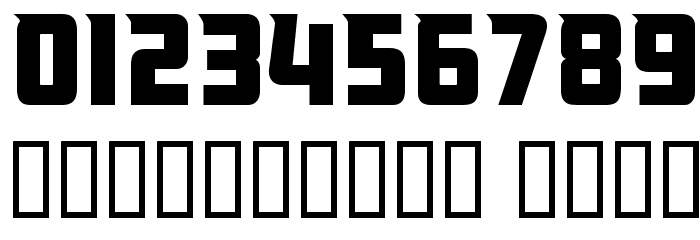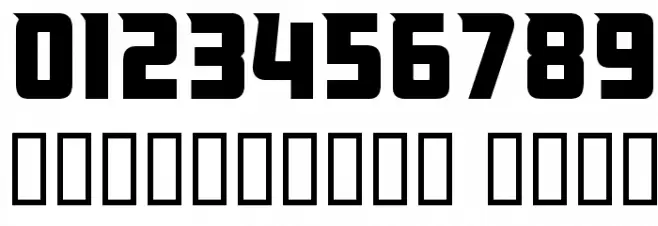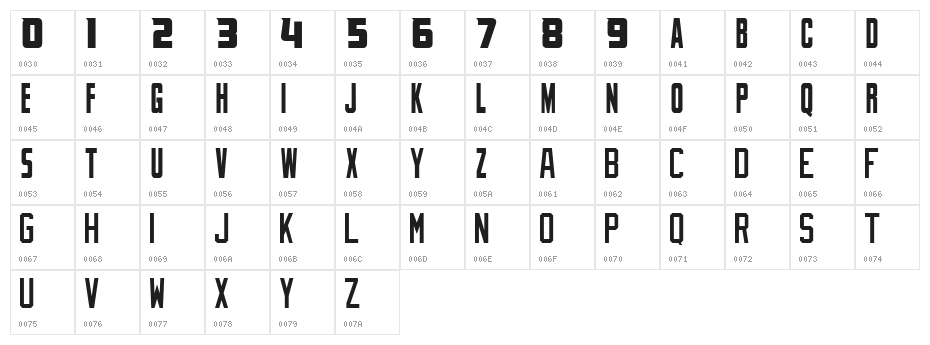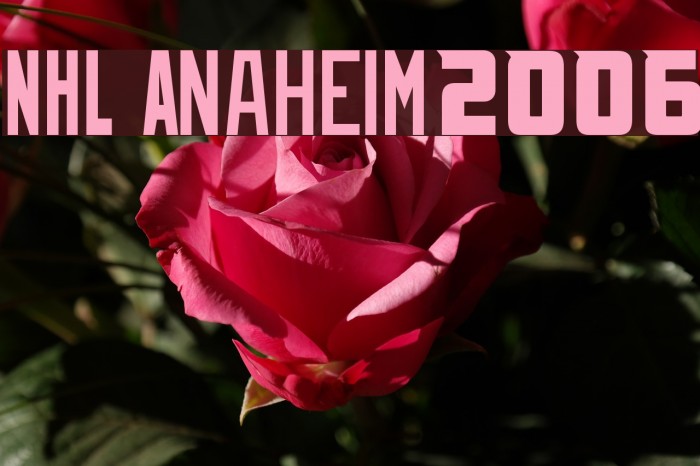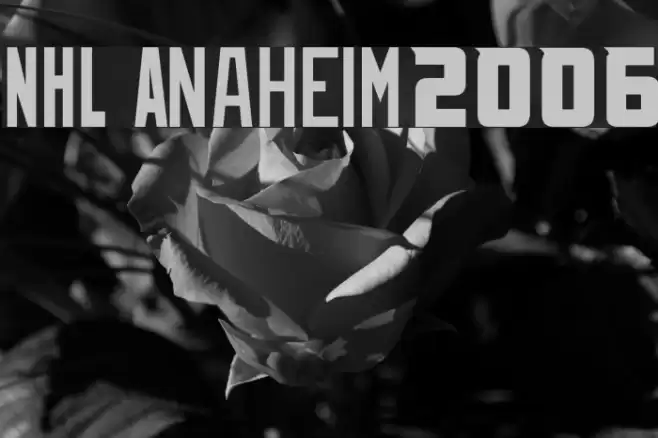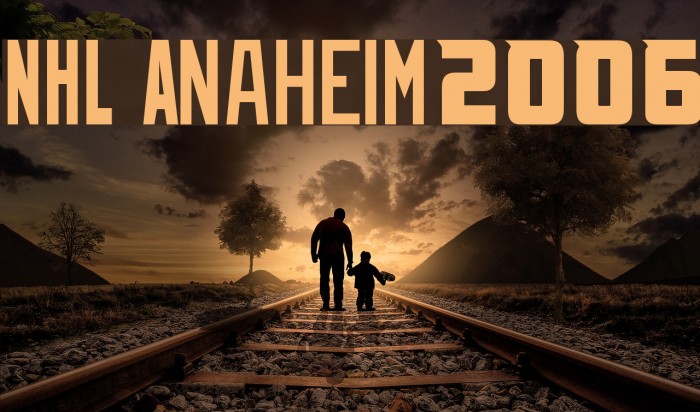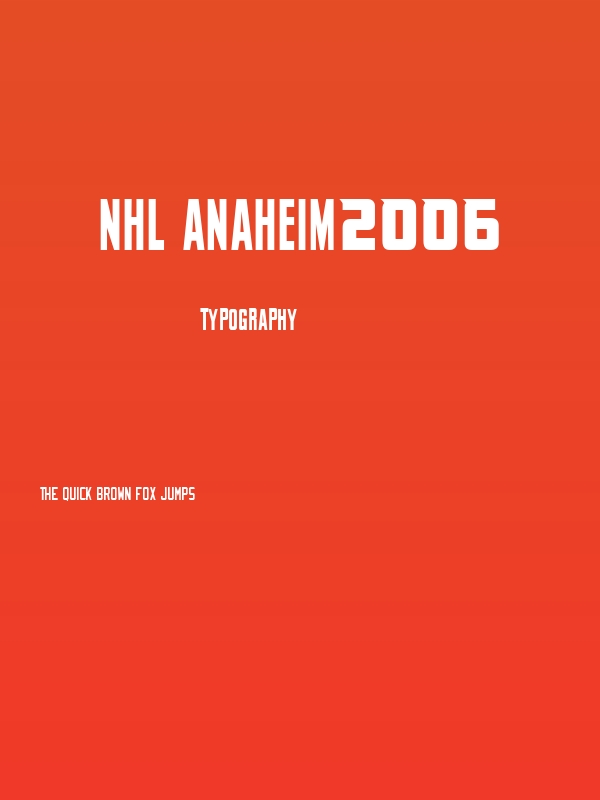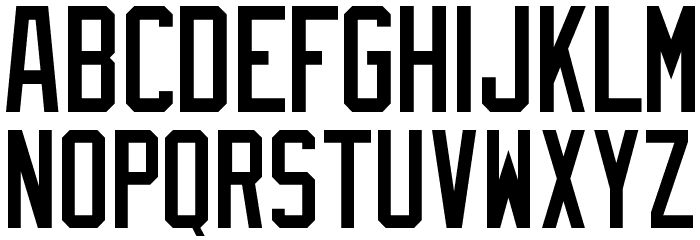
NHL Anaheim2006 Font
NHL Anaheim2006 Description
This font features bold, blocky characters with a strong, athletic appearance. The uppercase letters are particularly striking, with a uniform height and width that convey a sense of power and stability. The numbers are equally bold, maintaining the same robust style as the letters. The overall design is clean and modern, with a slight angularity that adds a dynamic edge. The font is well-suited for sports-related designs, branding, and headlines where a commanding presence is desired.
| Proposed Projects | Ideal for sports branding, team logos, athletic apparel, and dynamic headlines. |